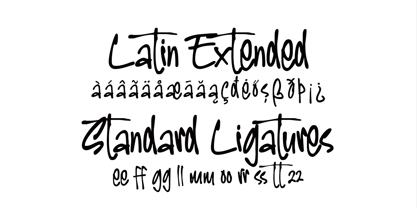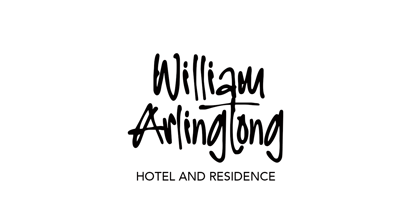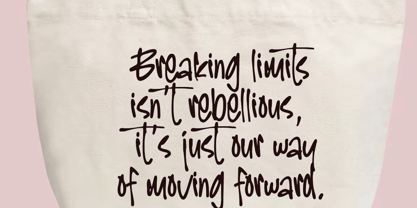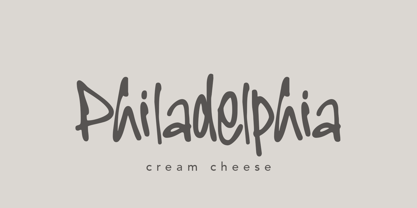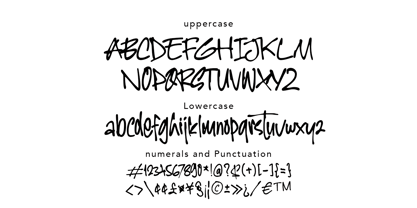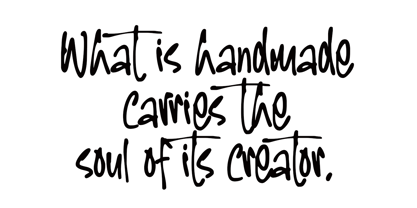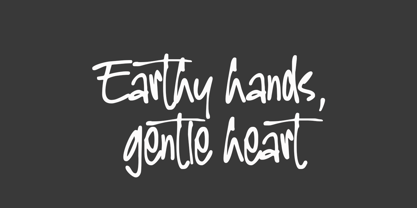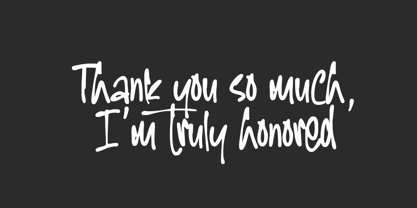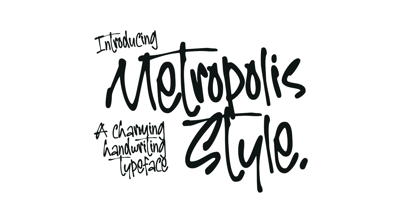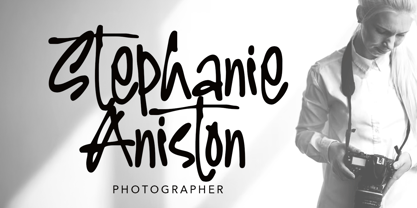
Metropolis Style
by MMMA Creative
The Metropolis Style Font Family was designed by Muhammad Ridha Agusni, Muhammad Mevlana Maliq Azizi and published by MMMA Creative. Metropolis Style contains 1 styles. More about this family
There’s something magical about handwriting — the imperfections, the rhythm, the soul in every stroke. Metropolis Style captures that spirit perfectly.
Born from the idea of creating a typeface that feels truly alive, Metropolis Style brings together organic flow, irregular strokes, and a natural, effortless energy. Every letter dances with character, giving your words a raw, human touch that no mechanical font could replicate.
Designed for those who seek authenticity in their work, Metropolis Style flows like real handwriting — soulful, spontaneous, and full of heart. It’s perfect for logo designs, branding, editorial pieces, social media graphics, and anything that needs to feel personal and genuine.
Whether you're telling a story, crafting a brand, or designing a package, Metropolis Style will bring a natural rhythm and emotional warmth to your creations.
Let your words move, naturally, beautifully with Metropolis Style.
Designers: Muhammad Ridha Agusni, Muhammad Mevlana Maliq Azizi
Foundry: MMMA Creative
MMMA Creative is an independent type foundry based in Aceh, Indonesia, founded by Muhammad Mevlana Maliq Azizi. With a love for expressive letterforms, MMMA Creative focuses on creating display, graffiti, and handwriting fonts that carry a personal and creative touch.Inspired by urban culture and the freedom of visual expression, each typeface is crafted with care—whether it's bold graffiti styles or natural handwriting. MMMA Creative is a place where letters are shaped by passion, built with a DIY spirit, and made to connect through character.